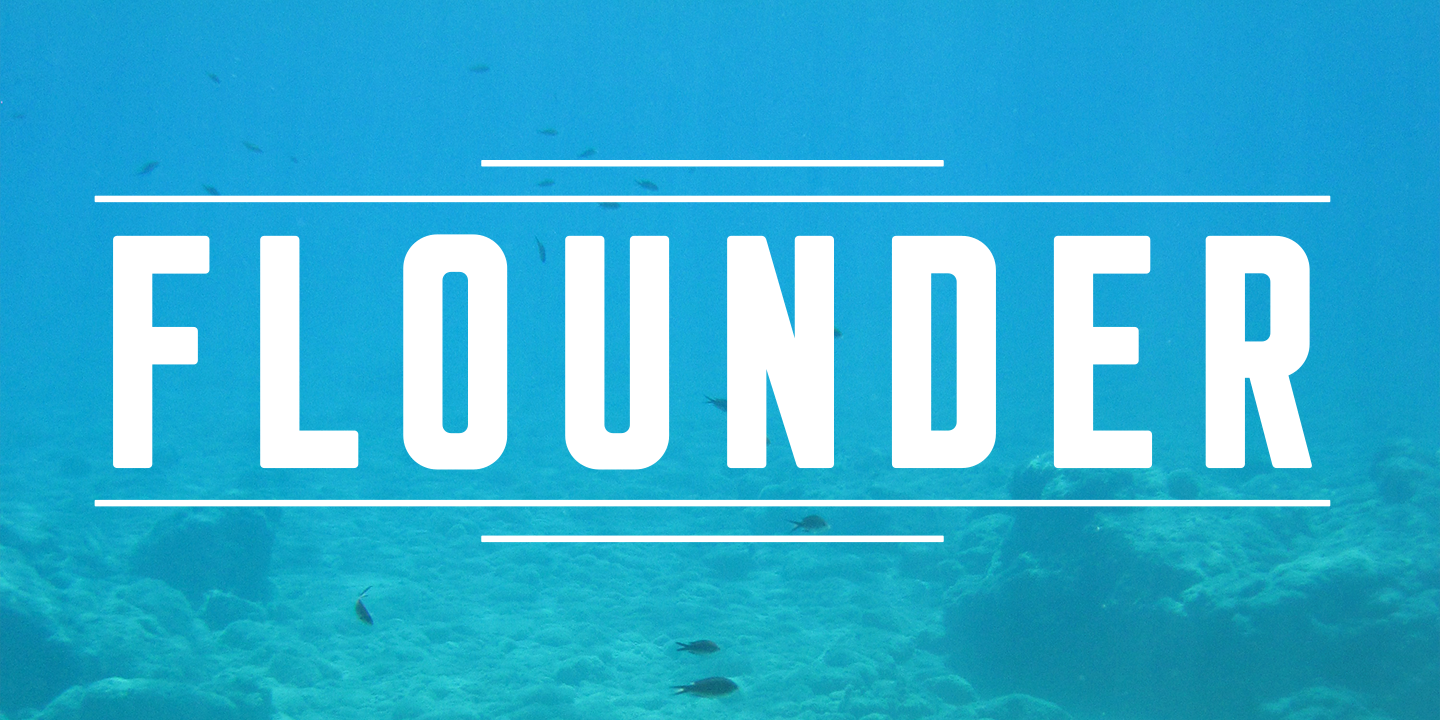
Flounder Font is perfect for seafood restaurant branding, marine aquarium displays, underwater-themed designs, coastal tourism marketing, fishing charter communications, ocean conservation campaigns, maritime children's books, and aquatic adventure publications.
What makes Flounder Font exciting is its delightful aquatic charm that beautifully captures the playful movement and underwater grace of marine life through typography that flows like gentle ocean currents and dances with submarine elegance. The whimsically crafted letterforms showcase fluid characteristics with oceanic personality that evokes memories of colorful coral reefs, peaceful underwater gardens, and the fascinating creatures that inhabit the mysterious depths of our planet's vast aquatic realms. This enchanting typeface embodies marine wonder, oceanic exploration, and aquatic joy, making it the perfect choice for brands and projects that celebrate the beauty of underwater life and want typography that reflects their connection to the magical world beneath the waves.
The Flounder Font family includes regular weight with complete uppercase and lowercase character sets, numerals, punctuation marks, and marine decorative elements. The comprehensive glyph collection features aquatic symbols, oceanic alternates, and underwater ornaments that enhance the authentic marine aesthetic across all coastal and aquatic design applications.
Marine professionals and aquatic enthusiasts seeking Flounder Font Free Download will discover unlimited opportunities for creating memorable, ocean-inspired communications. This exceptional typeface transforms standard aquatic text into compelling underwater adventures that immediately communicate marine expertise, oceanic beauty, and aquatic authenticity. Whether you're designing seafood restaurant materials, creating marine education resources, developing coastal resort branding, or crafting underwater photography exhibitions, this font delivers outstanding results that immerse audiences in the wonder of marine life while inspiring appreciation for ocean conservation and the incredible diversity of aquatic ecosystems that surround our coastal communities.
The fluidly balanced letter spacing and aquatic construction make Flounder Font highly effective across both intimate marine publication applications and larger oceanfront signage displays. Its underwater character ensures seamless integration into aquatic-themed projects while maintaining excellent readability for marine communication needs. From aquarium exhibit labels to deep-sea research presentations, this font consistently delivers the perfect oceanic touch that celebrates the beauty and mystery of underwater worlds.